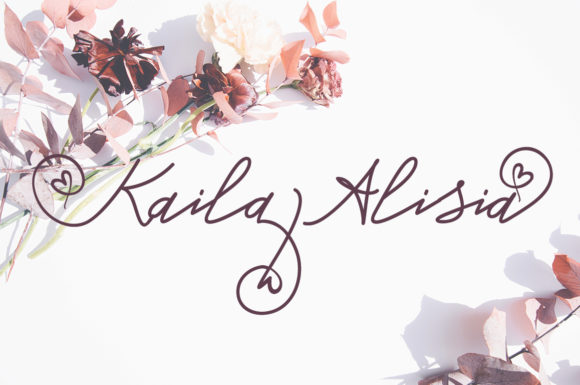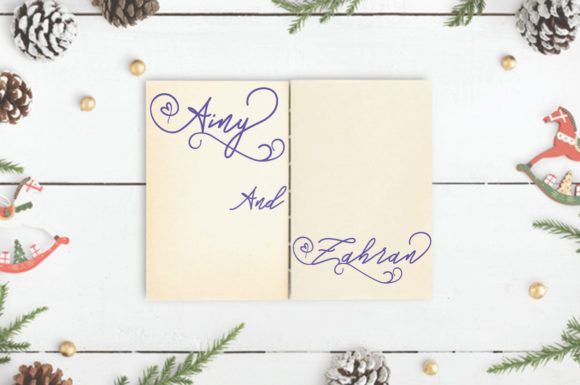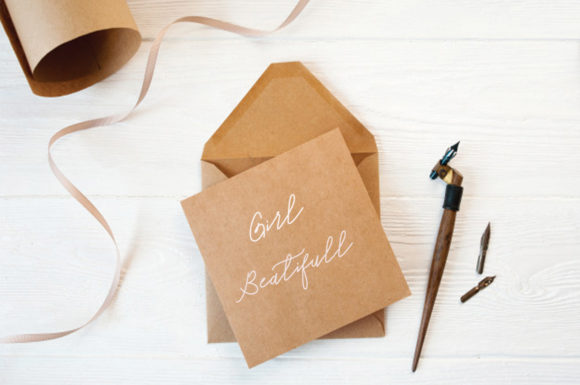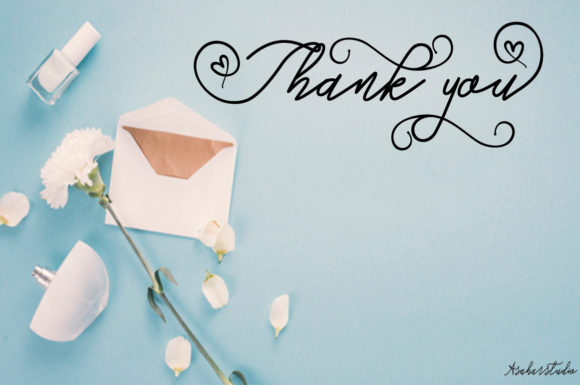
HomeScript FontsMongasteen Font Script Fonts Mongasteen Font FacebookXPinterestWhatsApp Mongasteen Font Poster 2 Mongasteen Font Poster 3 Mongasteen Font Poster 4 Mongasteen Font Poster 5 Mongasteen Font Poster 6 About Mongasteen Font Mongasteen is a bold and fun script with a playful feel. Fall in love with its calligraphic look! DOWNLOAD NOW People also explored Selektra Antefand Font Lothario Font Fameliya Gaffeur Rounded Calligrapher Font Good Things Font Blue Heart Font Monogram Love Font 455 0 TagsMongasteen Font Previous articleAmirah Brillone FontNext articleBlackstore Signature Font LEAVE A REPLY Cancel reply Comment: Please enter your comment! Name:* Please enter your name here Email:* You have entered an incorrect email address! Please enter your email address here Website: Save my name, email, and website in this browser for the next time I comment. Personal Use Free Better Together Duo Personal Use Free Read more about this font Arnprior Personal Use Free Read more about this font Fontmageddon Personal Use Free Read more about this font Kitchen Blue Personal Use Free Read more about this font BLOG Fonts That Capture the Spirit of New York City New York City is more than just a place—it’s an experience, a rhythm, a visual language... Where to Buy American Fonts Online in 2024 To increase your work productivity, choose the most readable fonts. Transform Your Website: Elevate Your Typography with 7 Best Web Font Generators